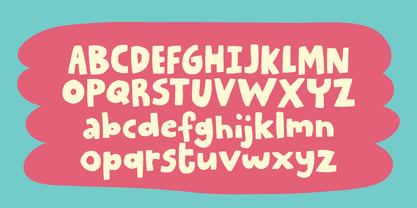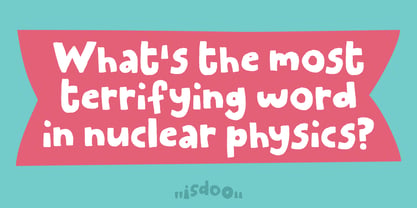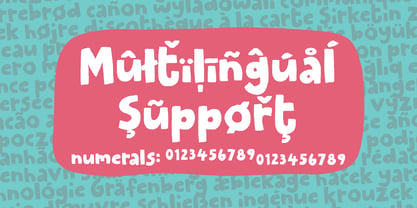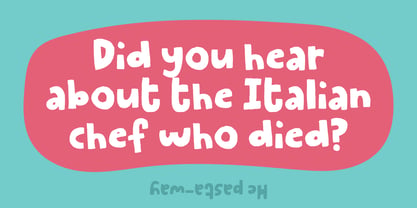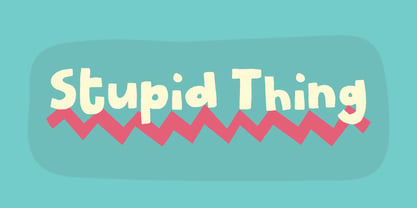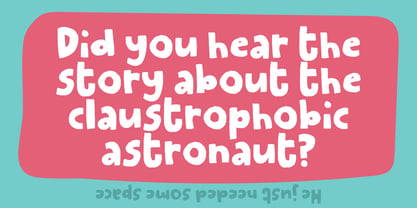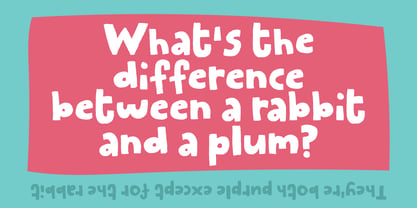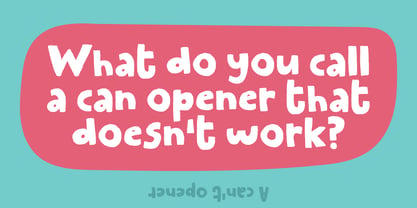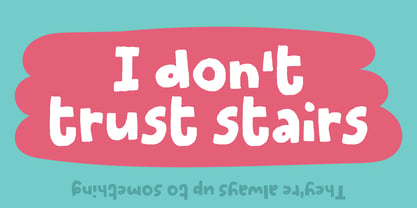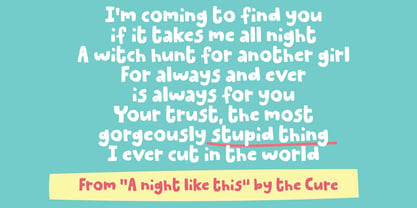
Stupid Thing
La famille de polices Stupid Thing a été conçue par Jakob Fischer et publiée par PizzaDude.dk. Stupid Thing contient 2 styles et options de package familial. En savoir plus sur cette famille
“Stupid Thing” looks like it just rolled out of bed, grabbed a marker, and decided to have a really good day - and you and your creative project is invited to all the fun! "Stupid Thing" is actually not that stupid - it's chunky, soft, and super friendly, with rounded edges that make every letter look like it could bounce a little if you poked it. Nothing is too sharp or serious here — it’s all about that relaxed, playful vibe.